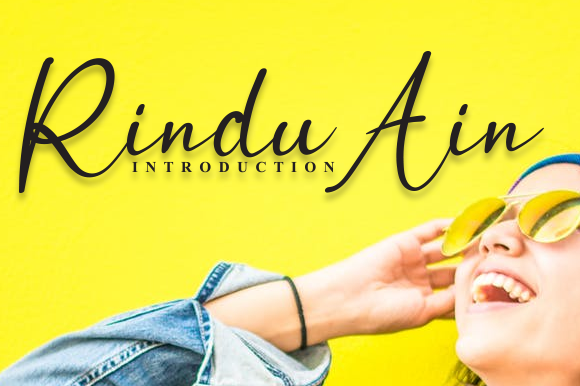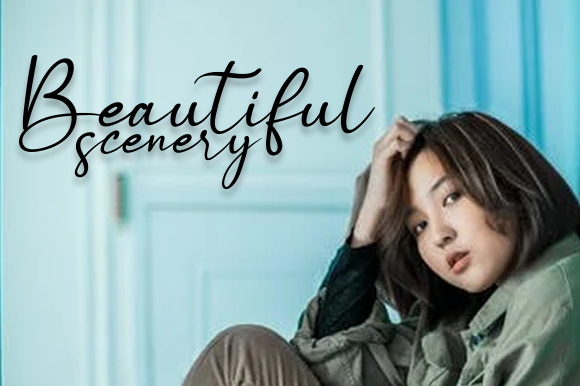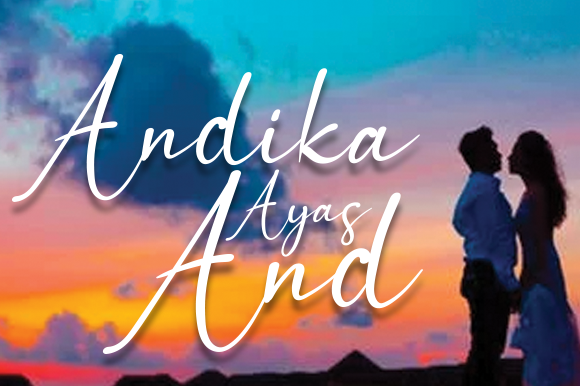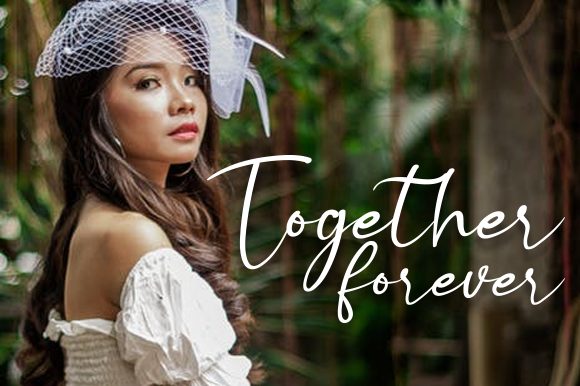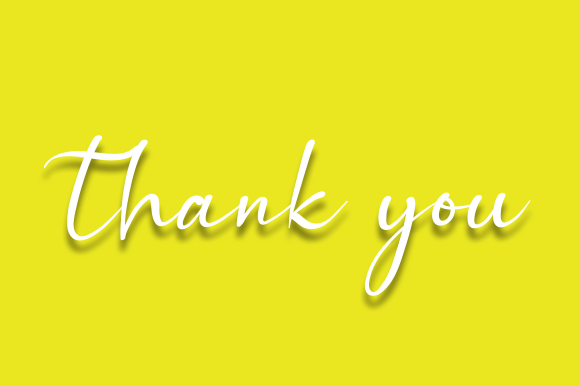
Rindu Ain Font
About Rindu Ain Font
Rindu Ain embodies fun, quirkiness and authenticity. This handwritten font is the perfect fit for all of your logos, branding, social media, and crafty DIY projects.